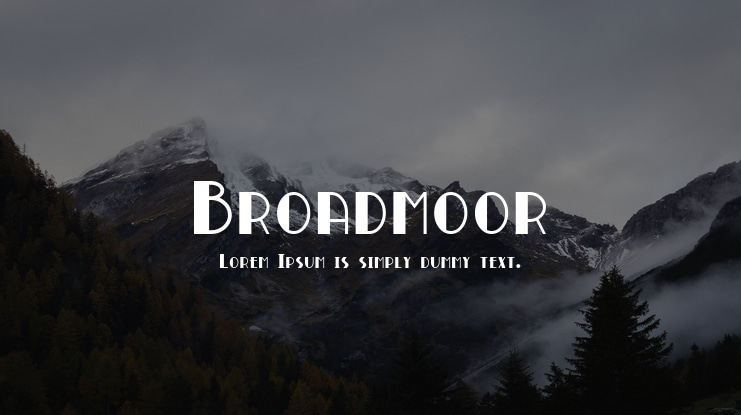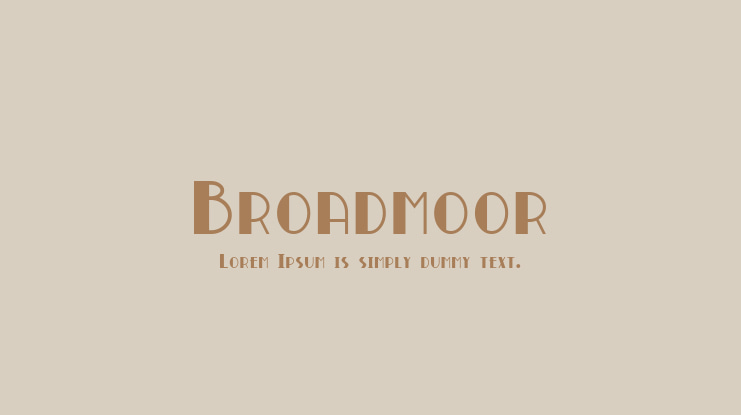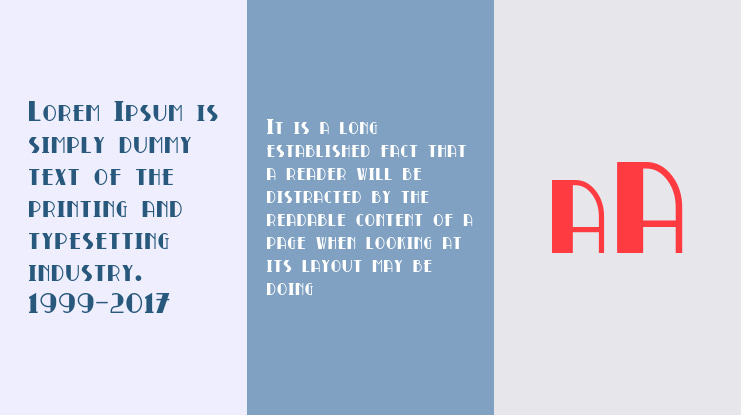
Broadmoor Font Family
Neale Davidson
A classic-style art-deco font based on a wide swath of lettering from the pulp era. The name is taken from the popular resort in Colorado Springs. Includes full alphabet, punctuation, accents, and Euro. Includes bold and italic versions.